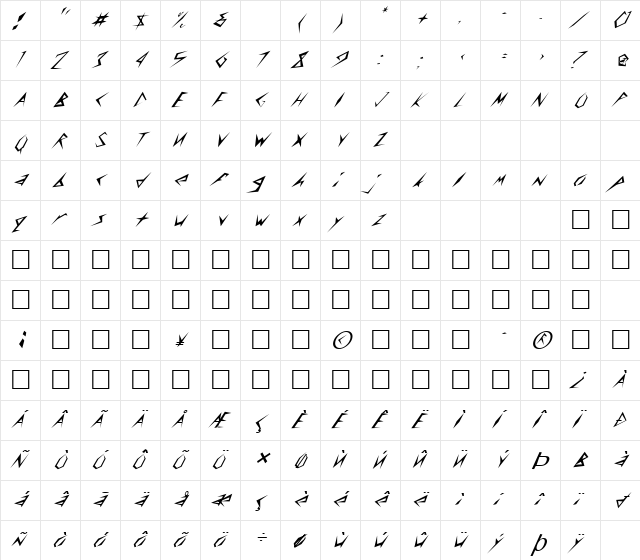
FZ UNIQUE 17 ITALIC Light Font Preview
Design Context for FZ UNIQUE 17 ITALIC Typeface
FZ UNIQUE 17 ITALIC is a composed and adaptable typeface that performs quietly and consistently across a wide range of design contexts. Its italic angle brings a sense of urgency and motion to the letterforms. The delicate stroke weight brings airiness and refinement to layouts.
Pro Tip: Try FZ UNIQUE 17 ITALIC for annotation and caption copy alongside an upright companion — the contrast in angle creates a dynamic but ordered typographic system.